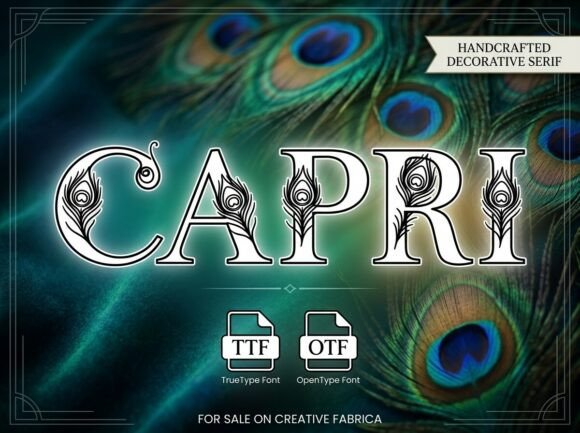
Introducing Capri Font: The Ultimate Decorative Display Font for Creative Minds
Are you tired of using the same old fonts for your designs? Do you want to make a statement and stand out from the crowd? Look no further than Capri Font, a stunning decorative display font that’s designed to be the center of attention. With its unique artistic elements and strong visual personality, this font is perfect for creators who want to break away from the ordinary and add a touch of elegance to their work.
What Makes Capri Font So Special?
Capri Font is a versatile decorative display font that’s perfect for bold headlines, artistic logos, and creative packaging. Its unique design features make it an excellent choice for projects that require a professional and polished finish. Whether you’re a designer, craftsperson, or DIY enthusiast, this font is sure to impress.
Key Features of Capri Font
- Unique Artistic Elements: Capri Font features unique artistic elements that set it apart from other fonts. Its design is carefully crafted to make every letter a work of art.
- Strong Visual Personality: This font has a strong visual personality that commands attention. It’s perfect for making a statement and adding a touch of elegance to your designs.
- Versatile: Capri Font is versatile enough for use in a variety of projects, from bold headlines and artistic logos to creative packaging.
- Professional and Polished Finish: This font maintains a professional and polished finish, making it perfect for projects that require a high level of sophistication.
Why Choose Capri Font?
There are many reasons why Capri Font is an excellent choice for designers and crafters. Here are just a few:
- Add a Touch of Elegance: Capri Font adds a touch of elegance and sophistication to any project.
- Stand Out from the Crowd: This font is designed to make a statement and help you stand out from the crowd.
- Perfect for Creative Projects: Capri Font is perfect for creative projects that require a unique and artistic touch.
How to Use Capri Font
- Use it for Headlines: Capri Font is perfect for bold headlines and titles.
- Create Artistic Logos: This font is ideal for creating artistic logos that make a statement.
- Add a Touch of Elegance to Packaging: Capri Font can add a touch of elegance and sophistication to your packaging designs.
Capri Font is a stunning decorative display font that’s perfect for creative minds who want to make a statement. With its unique artistic elements, strong visual personality, and versatility, this font is sure to impress. Whether you’re a designer, craftsperson, or DIY enthusiast, Capri Font is an excellent choice for adding a touch of elegance and sophistication to your projects.